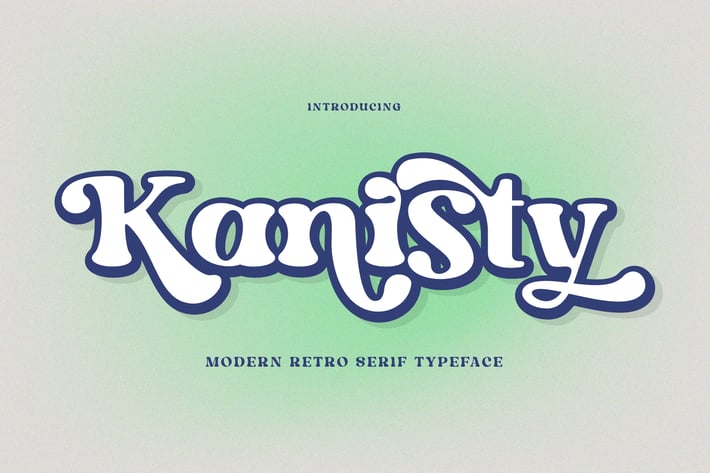
Kanisty Bold Serif Font
Kanisty - Modern Bold Serif Font is a stylish font It has a modern and retro look. Comes with alternatives and binders, helps to create stunning logos, quotes, posts, blog posts. branding projects, magazine imagery, wedding invitations, and more.
Kanisty is a stylish font which is a retro and bold font. The bold curves give it a groovy '70s vibe with a serif that brings it back a little bit of the traditional
Kanisty fits perfectly with that nostalgic moodboard and vintage logo. It comes with both lower and upper case plus numbers, punctuation & unique multilingual letters.